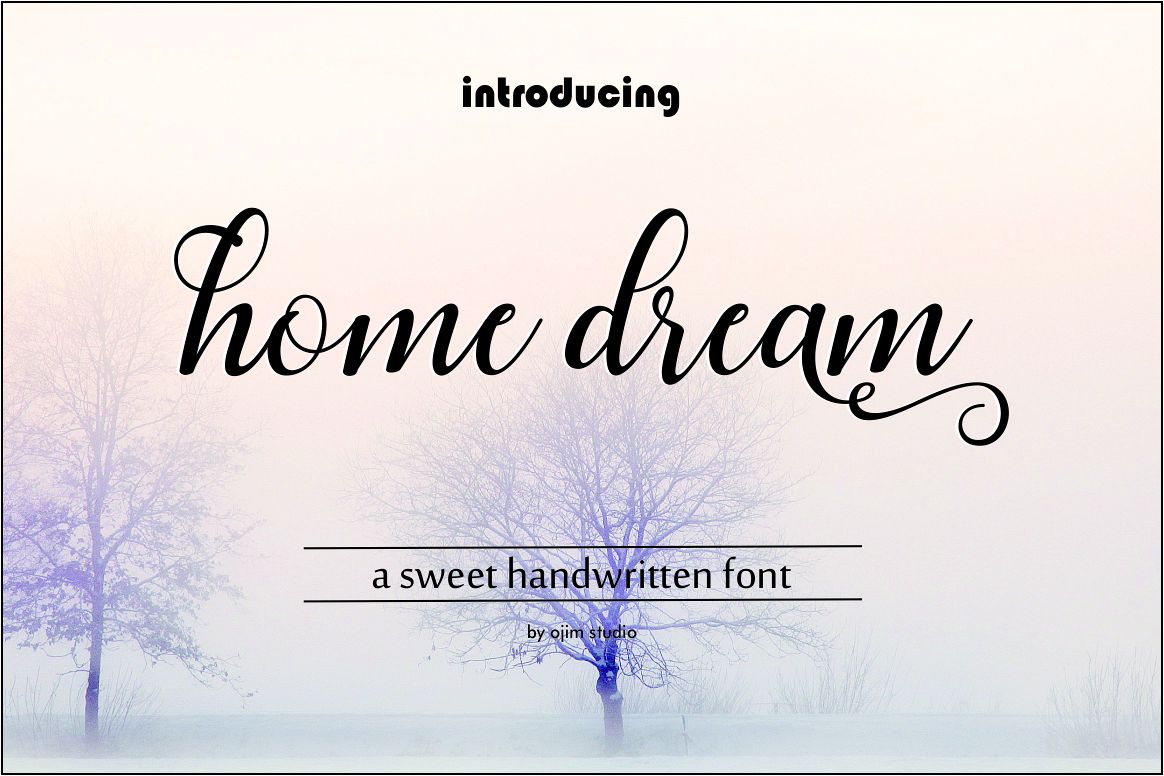
HOME DREAM SCRIPT
HOME DREAM is a modern script font, every letter has been carefully crafted to make your text look beautiful with an elongated connection model. With a modern script style this font will be perfect for various projects, for example: weddings, invitations, greeting cards, posters, business cards, quotes, blog headers, branding, logos, fashion, clothing, letters, stationery,HOME DREAM include beautiful alternative glyphs and swirls